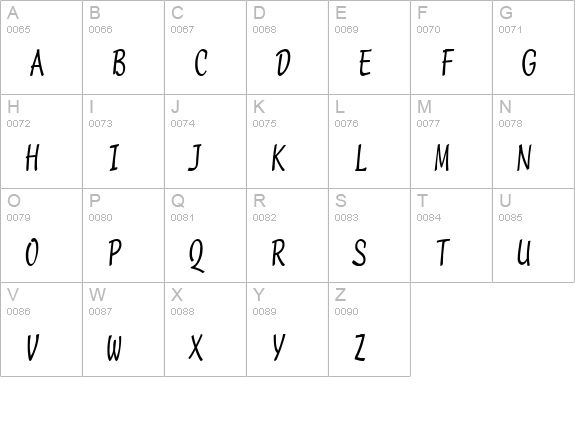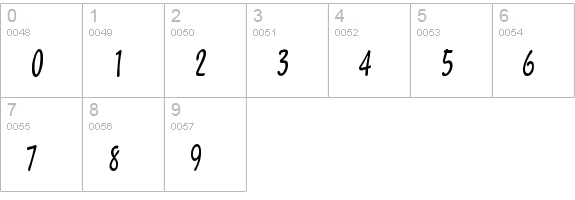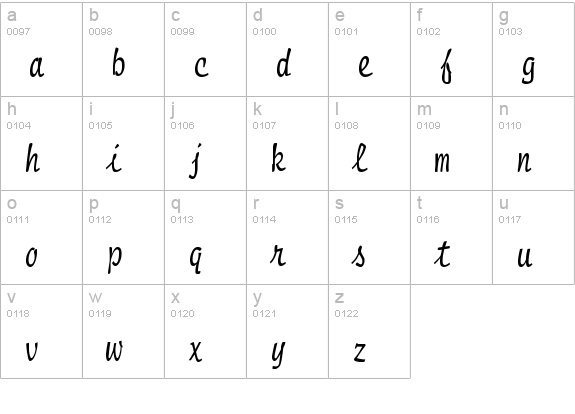
Manuscript Thin Normal is a delicate, low-contrast variant in the Manuscript typeface family \xE2\x80\x94 well suited to fashion editorial, minimal branding, and high-contrast display.
Manuscript Thin Normal font is a sophisticated and elegant typeface designed with utmost precision and attention to detail. Its thin and slender strokes exude a sense of grace and refinement, making it perfect for projects that require a touch of sophistication. This font's clean and minimalist design allows it to seamlessly blend into various contexts, whether it is used for formal documents, invitations, or even digital platforms. The delicate curves and subtle variations in line weight create a harmonious balance that enhances the overall visual appeal. One of the most remarkable features of Manuscript Thin Normal font is its versatility. It can effortlessly adapt to different design styles, from classical to contemporary, making it a go-to choice for graphic designers, typographers, and creatives alike. What's even better is that Manuscript Thin Normal font is available for free download at FontsMarket.com. This means that you can easily access and utilize this beautiful font in your projects without any restrictions. Whether you're a professional designer or a casual enthusiast, this font offers you the opportunity to elevate your work to new heights. So don't wait any longer - visit FontsMarket.com today and download Manuscript Thin Normal font for free. Unleash your creativity and let this font add a touch of elegance and sophistication to your designs.